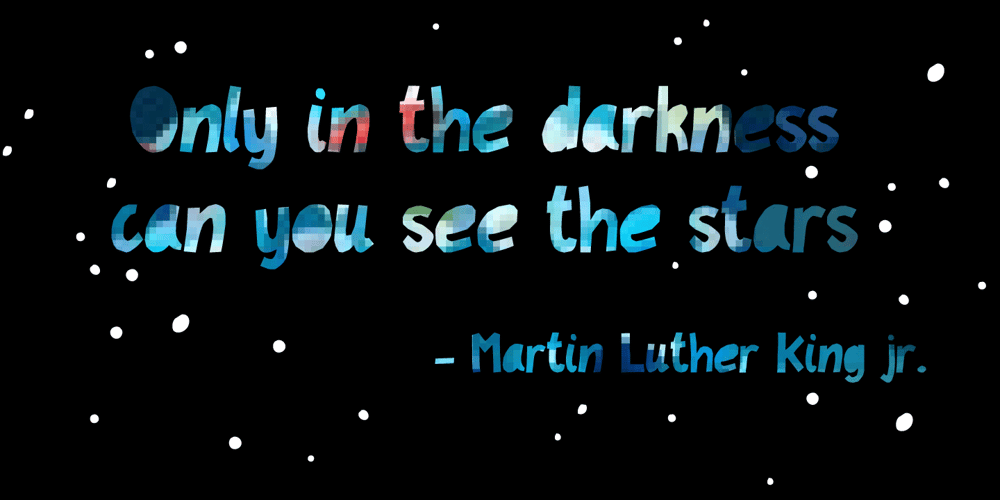
PaperCutAlmondDark Font Family was designed by Pieternella Luttikhuizen and published by PineStreet. PaperCutAlmondDark contains 1 styles and family package options. This is the ‘dark’ version of our font PaperCut Almond. It has all of its openings closed to enhance the effect of handcut lettering.